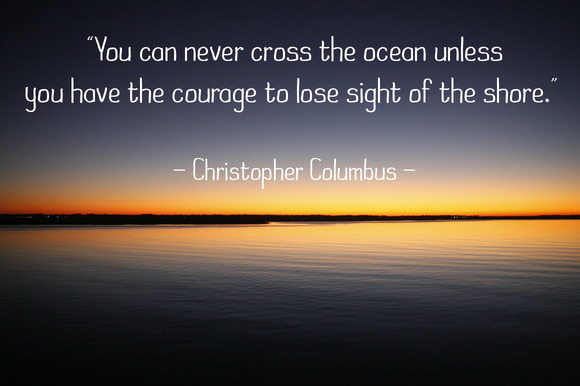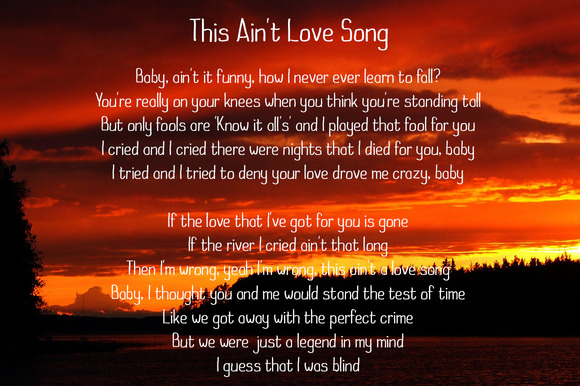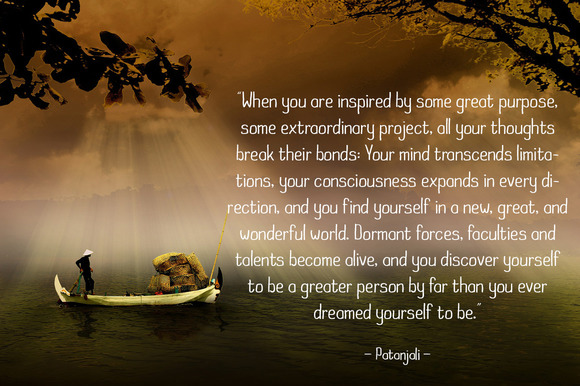
Introduction to Handwritten Sans Font
Handwritten Sans is an playful handwritten sans serif font.
The font is slightly roughed up to give it a semi-formal feel The Handwritten Sans comes with 270 glyphs.
Key Features of Handwritten Sans Font